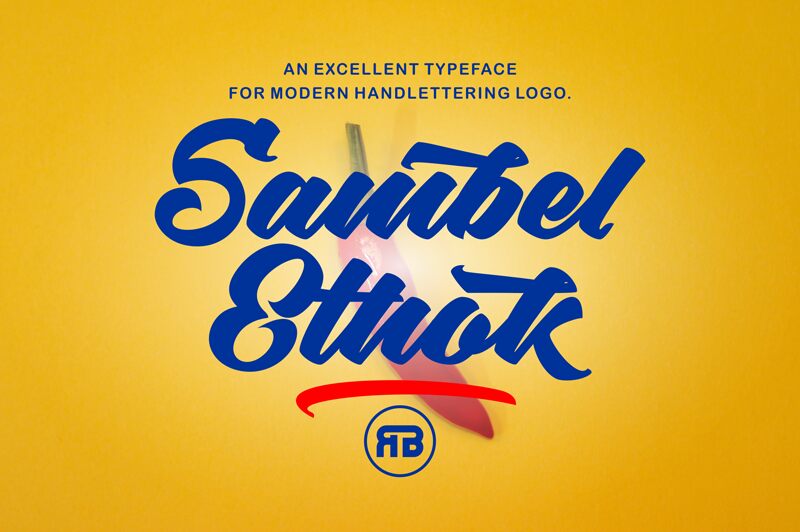
Sambelethok, designed by RGB Studio, is a captivating handwritten font that exudes boldness and modernity. The thick strokes and fluid curves give it a striking presence, making it an ideal choice for those looking to create memorable hand-lettered logos. Its dynamic style seamlessly blends elegance with contemporary flair, ensuring designs stand out with a distinctive touch.
Perfect for branding projects, Sambelethok's robust character can elevate everything from product packaging to social media graphics. Whether you're aiming for sophistication or a trendy vibe, this font delivers versatility and impact in equal measure.
Designed by MOH. MA'IN from RGB Studio in 2022.